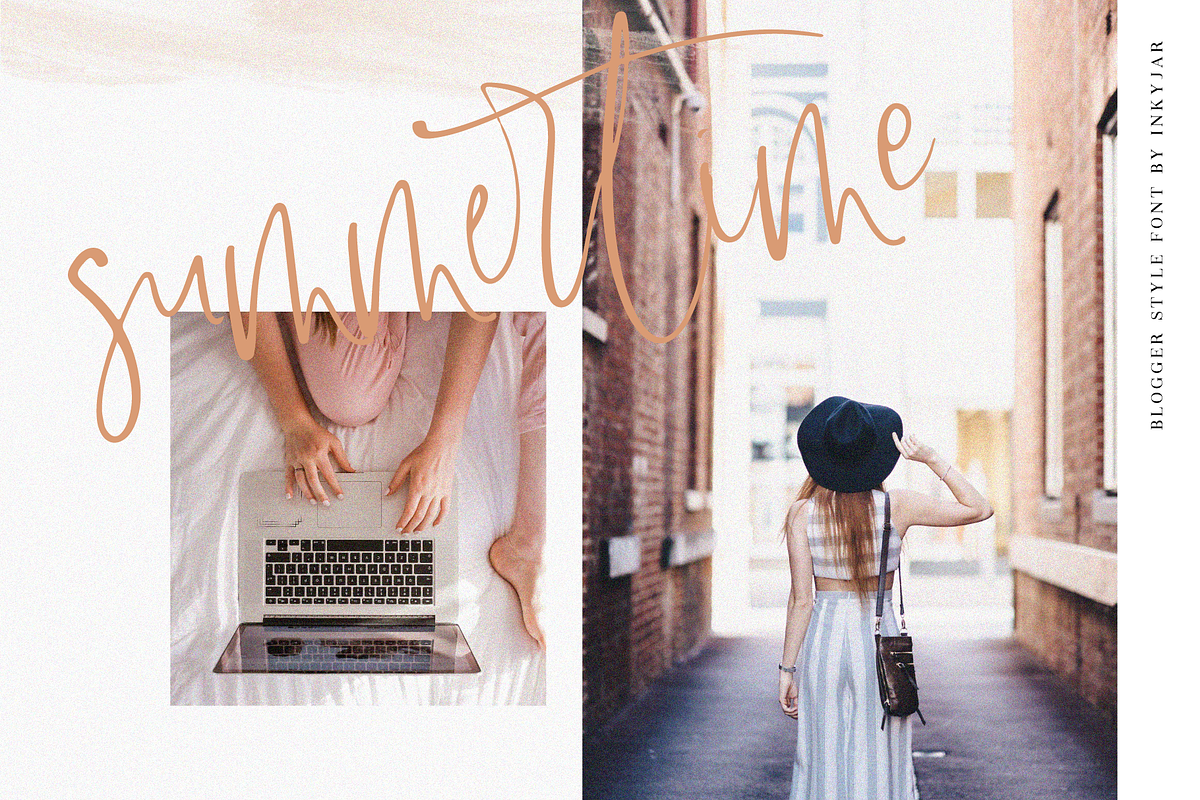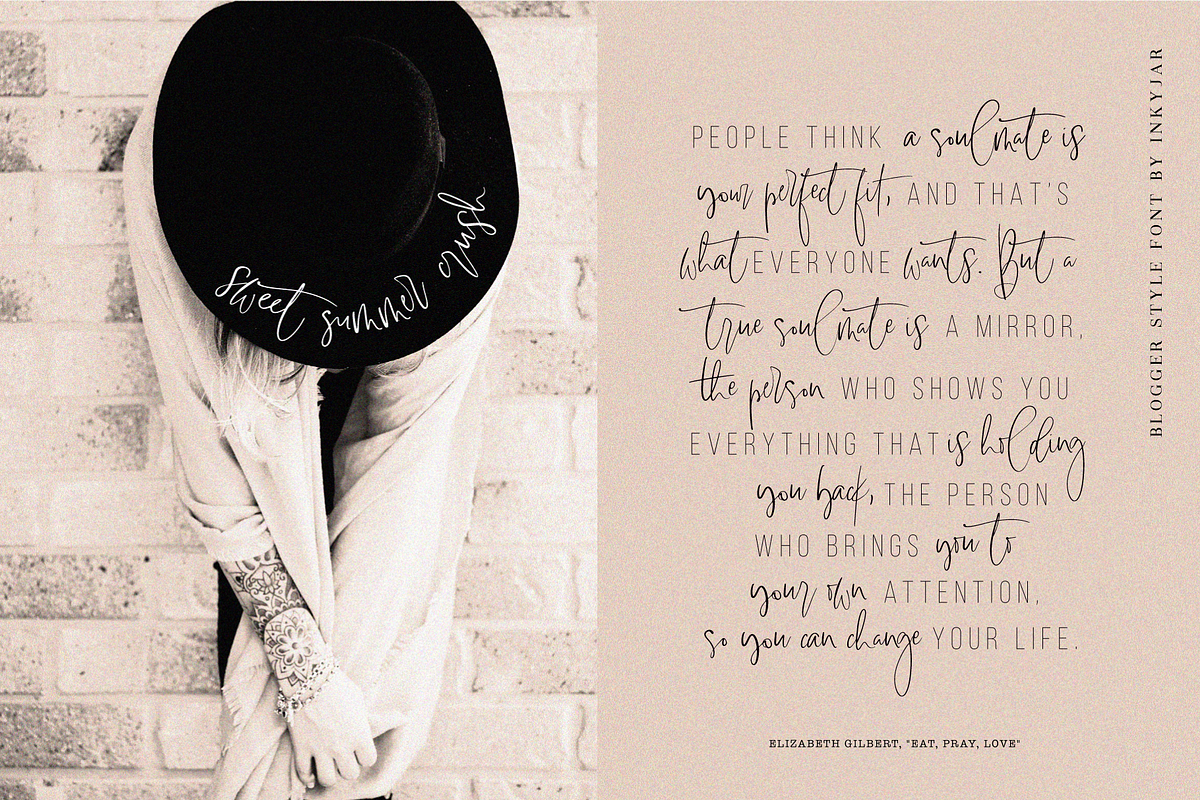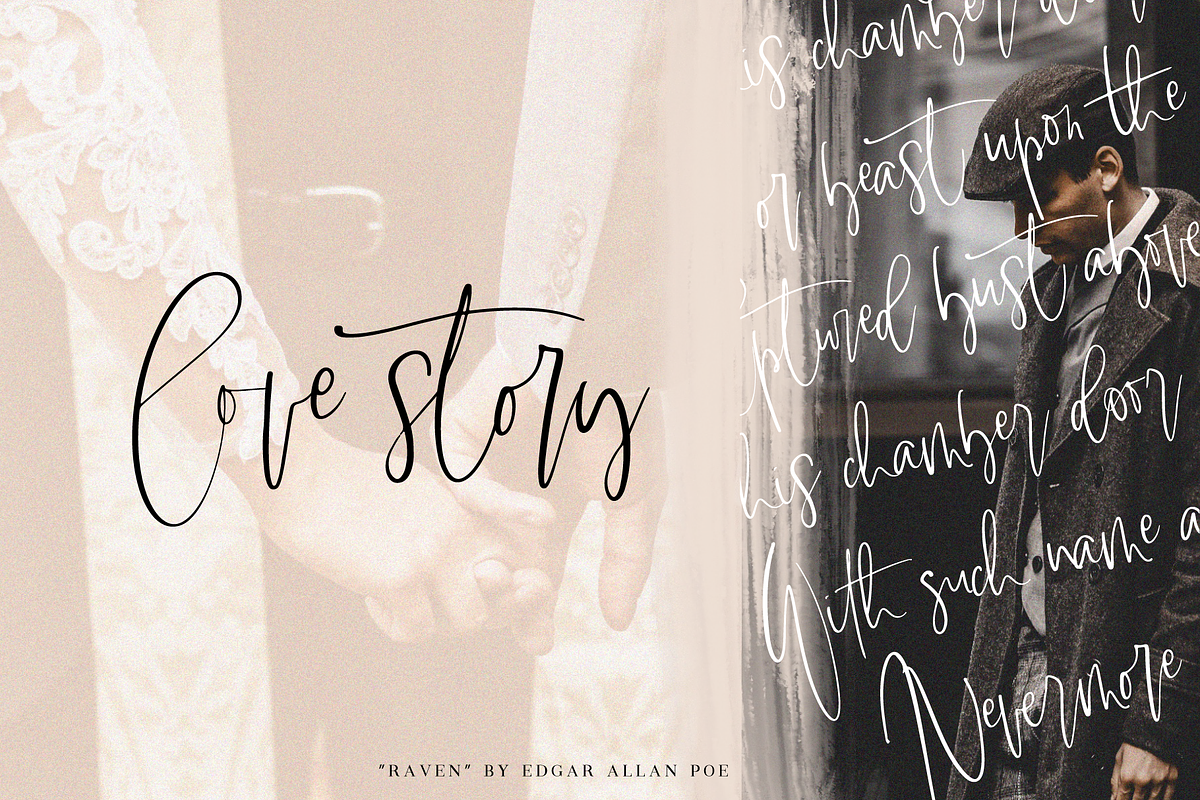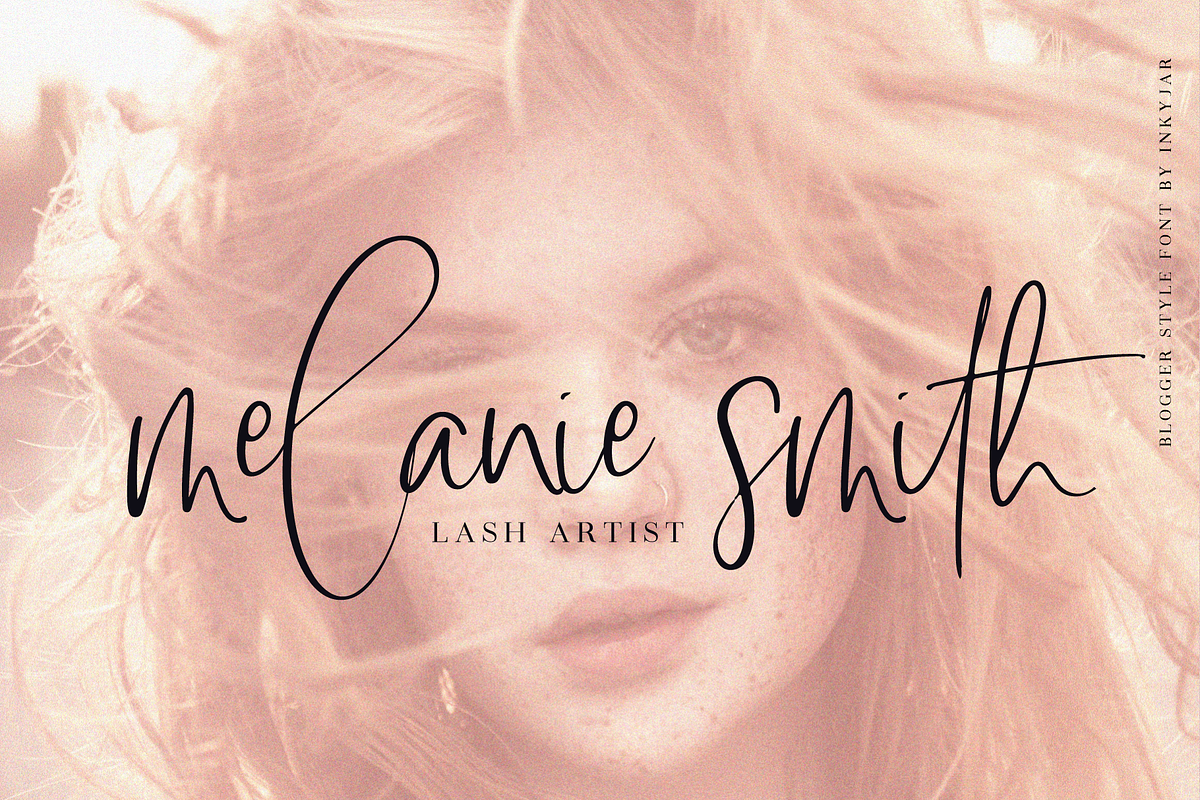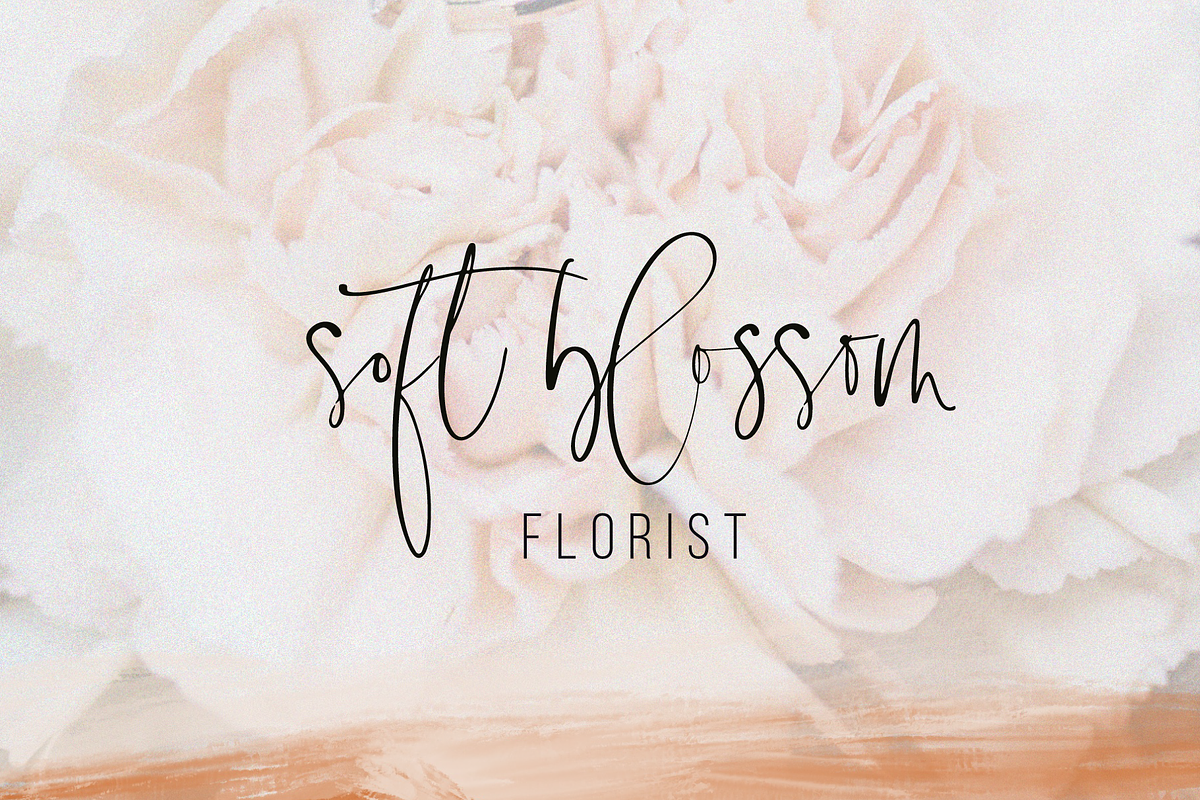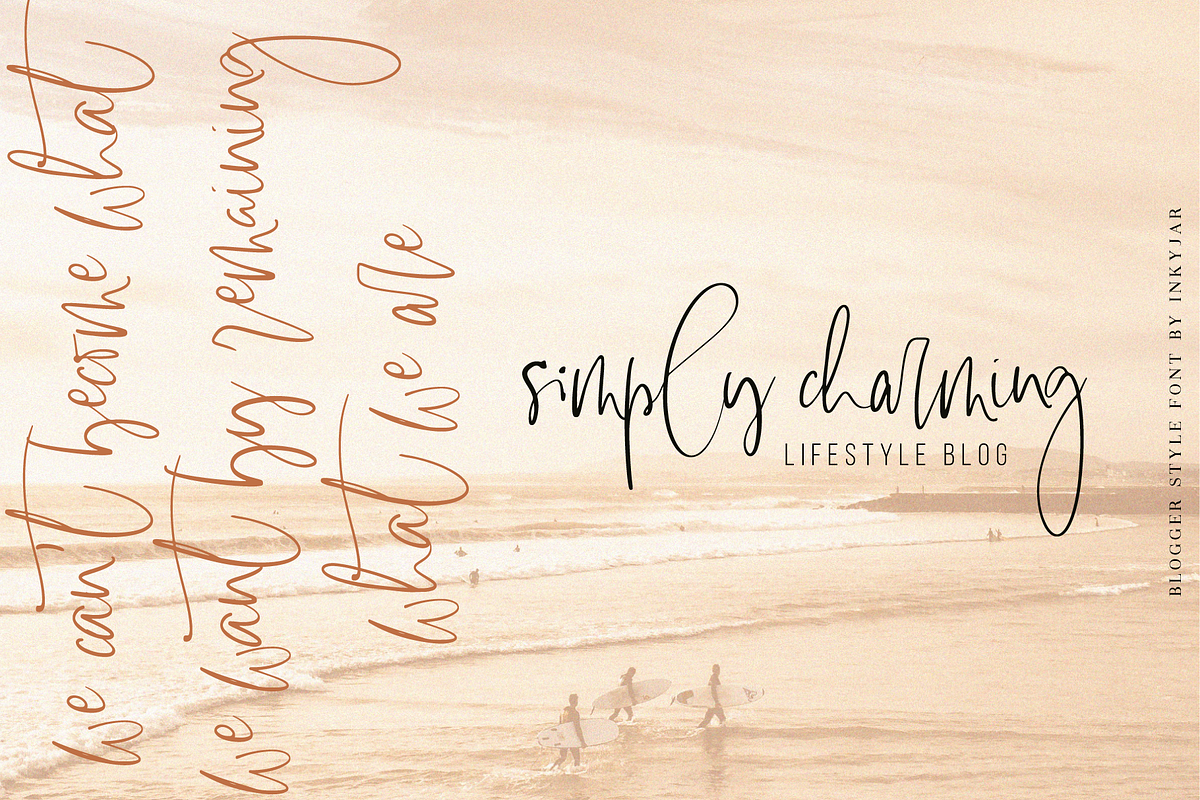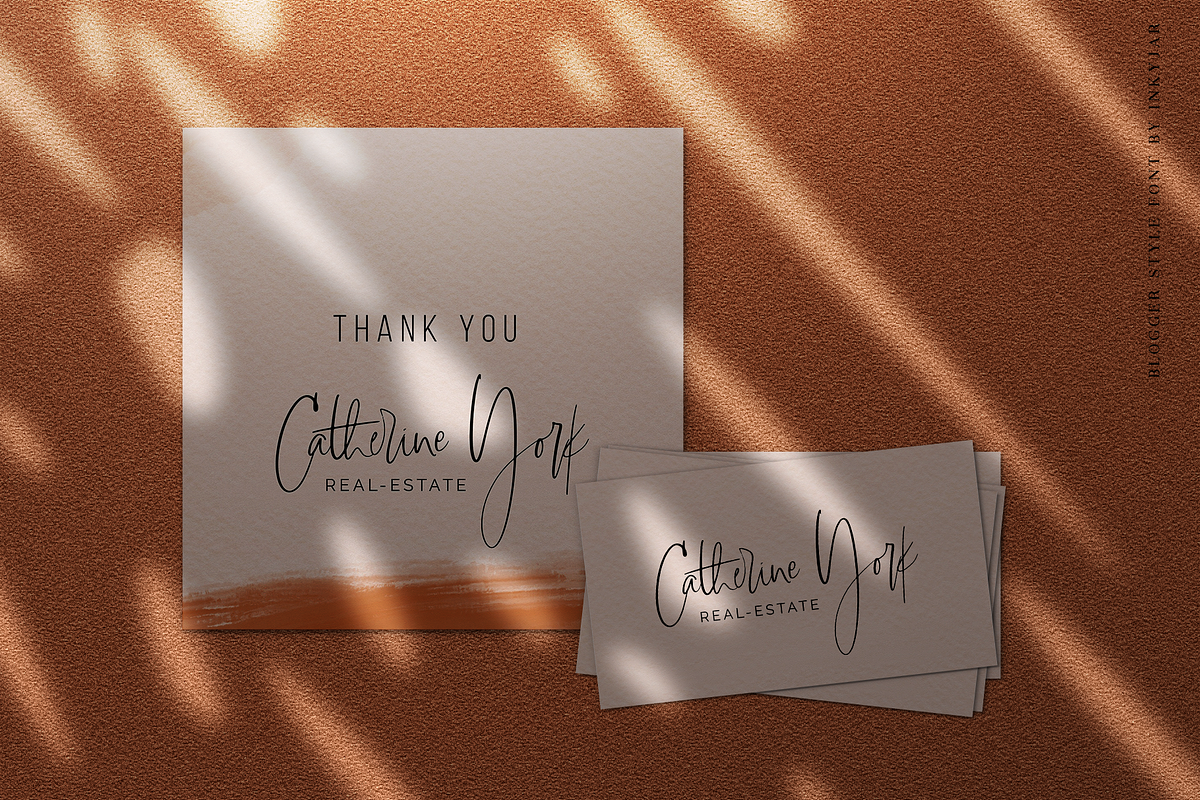
Lasiera Script Font | Blog style
The idea behind this font was to create a sexy, bold script font that would match perfectly feminine branding, blogger style to empower business women around the globe.
Meet the Lasiera, blogger style script font with lots of ligatures for a natural, handwritten feel. Instagram posts, blog headlines or just wedding invitations will look amazing with this font!